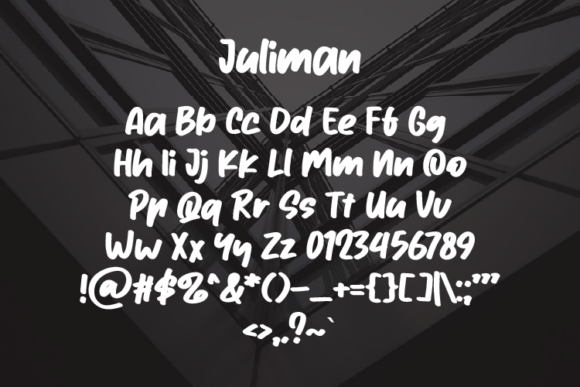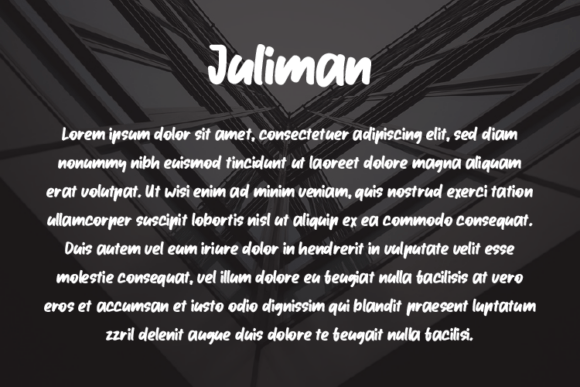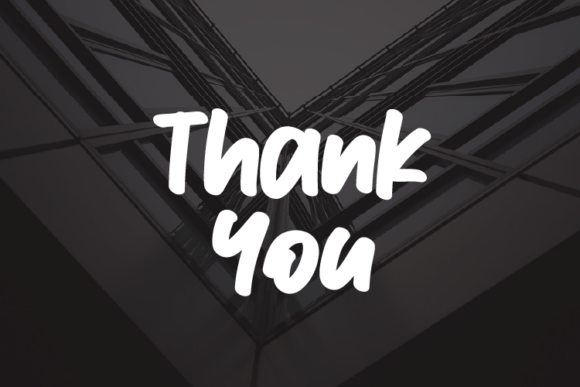
Introduction to Juliman Font
Have you ever found yourself stuck in front of a blank design canvas, desperate for the perfect font to bring your creative project to life? I know I have. One day, while browsing through a collection of unique fonts, I stumbled upon the Juliman Font – a bold, chunky, and highly visible font that instantly captured my attention.
With its fun, rounded, and slightly bouncy aesthetic, Juliman Font is the perfect design resource for anyone looking to add a playful touch to their work. Whether you’re designing for children, creating impactful headlines, or simply need a strong, cheerful visual presence, Juliman Font is sure to deliver. Its thick, smooth strokes give it a friendly and approachable personality that’s hard to resist.
Key Features of Juliman Font
- Unique and creative design suitable for various creative projects, making it a valuable design resource.
- Juliman Font is a unique and stylish font that adds a touch of elegance to any design, perfect for creating a lasting impression.
Honest Review: Juliman Font
As a designer, I’ve worked with numerous fonts, and I must say that the Juliman Font is one of the more interesting ones I’ve come across. Its unique design and versatility make it a great addition to any creative project.
- ✨ Beautiful, hand-crafted design that adds a personal touch to any text.
- ✨ High quality and crisp lines that make it perfect for both digital and print media.
- ⚠️ Limited character set, which may not be ideal for longer texts or documents.
- ⚠️ Not as versatile as some other fonts, which may limit its use in certain design contexts.
Overall, I’d say that the Juliman Font is a great design resource for designers looking for something unique and eye-catching. While it may have some limitations, its high quality and beautiful design make it a great addition to any creative project.
Tips for Getting the Most Out of Juliman Font
Juliman Font is ideal for a variety of creative projects, including graphic design, digital art, and typography. Its versatility and high-quality design make it a popular choice among designers, artists, and writers. Whether you’re creating a logo, poster, or infographic, Juliman Font is a great resource to have in your toolkit.